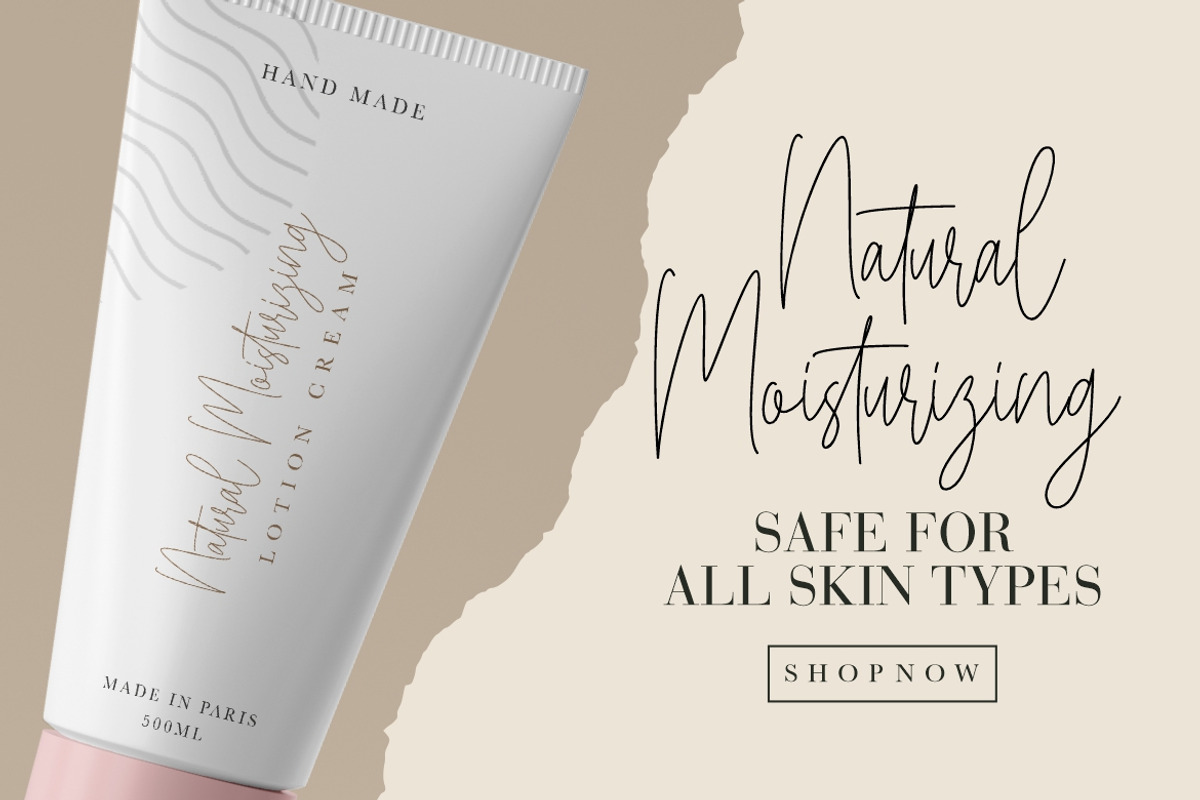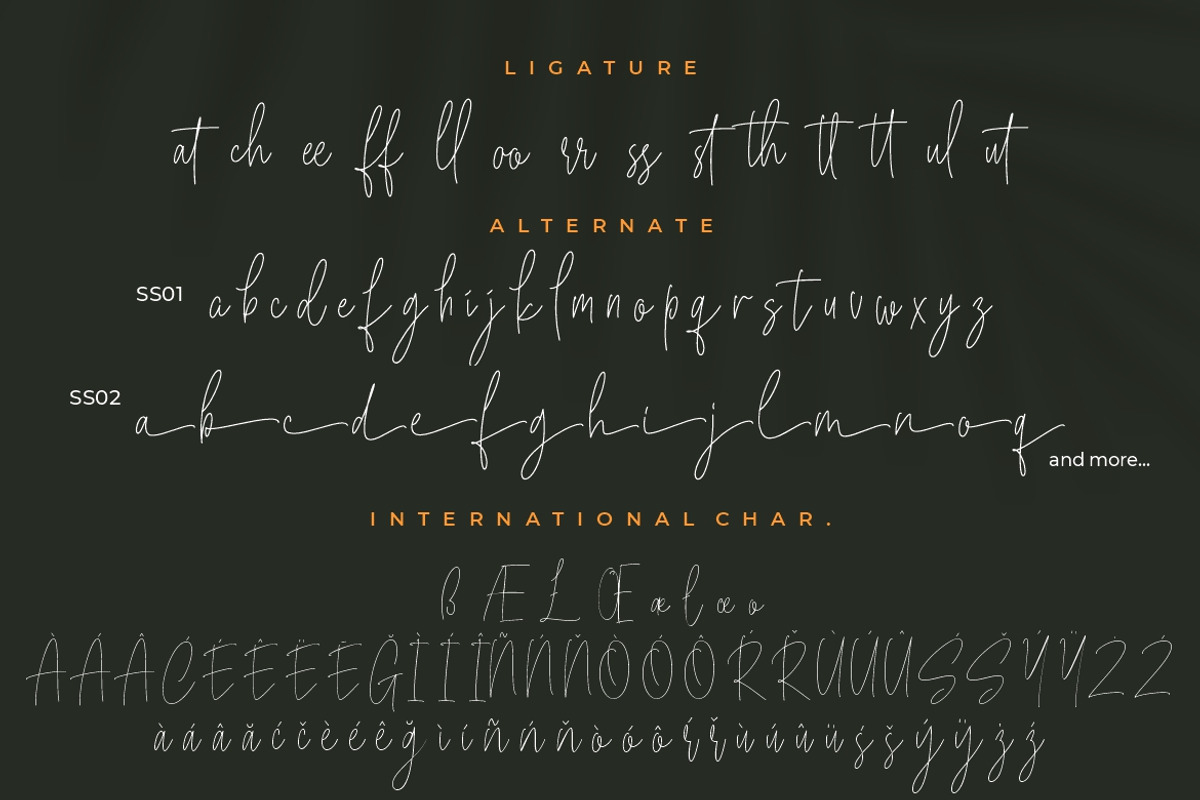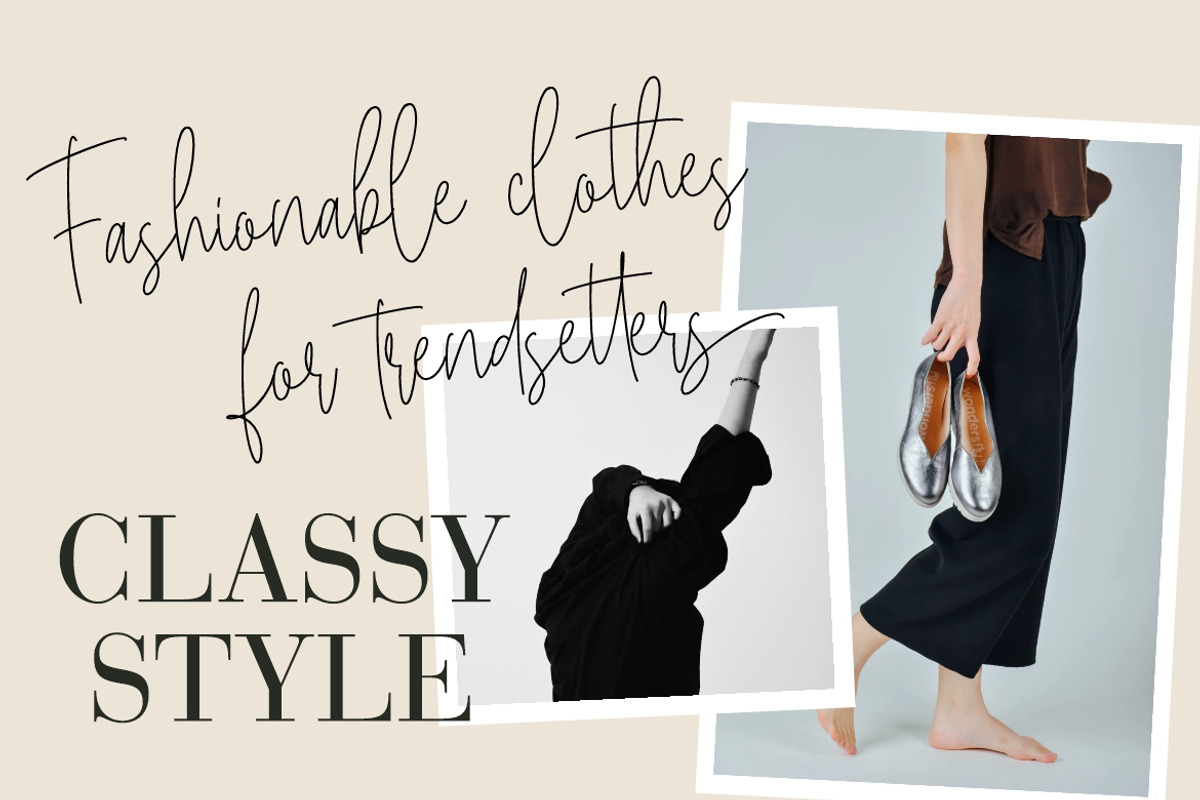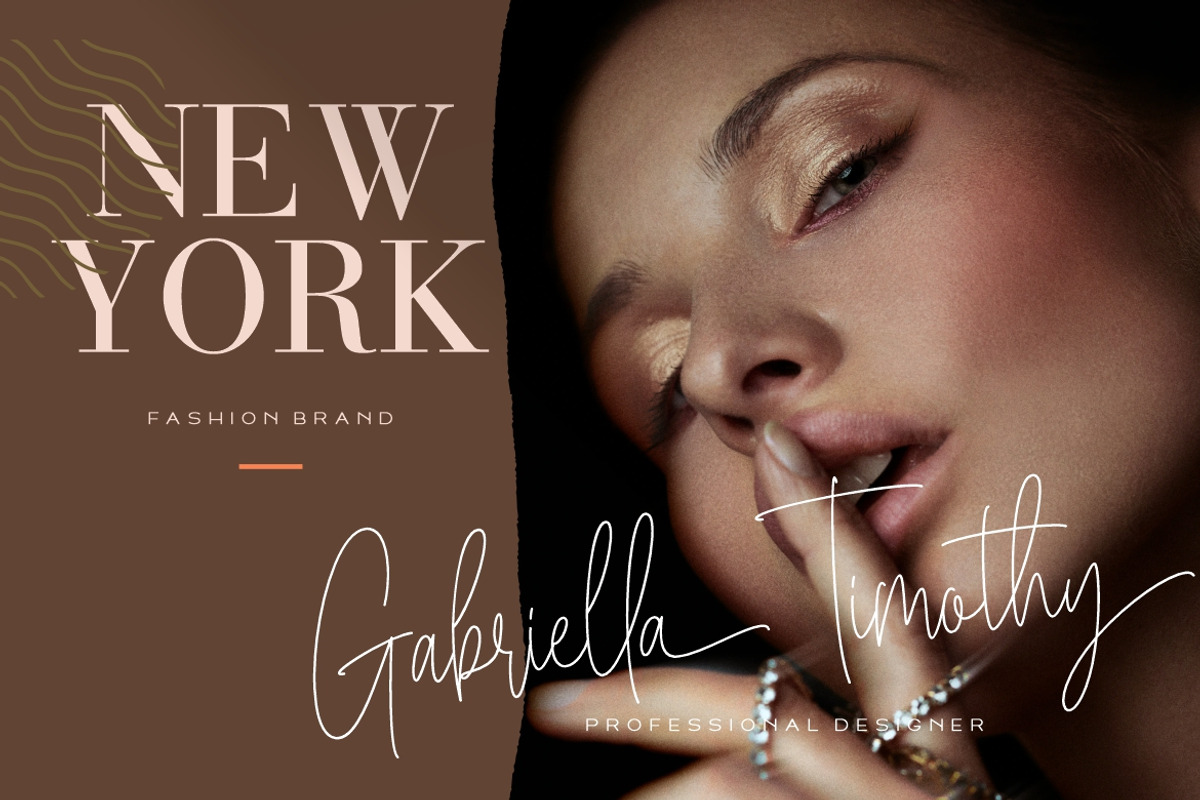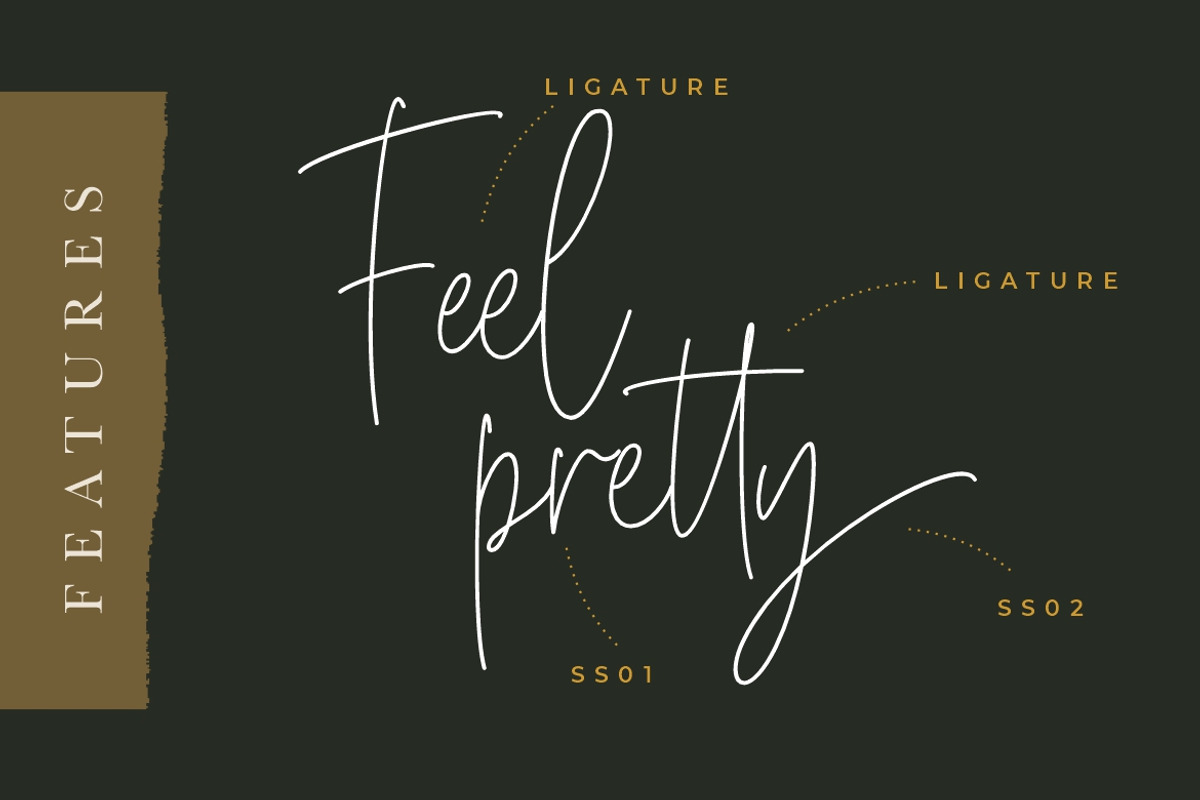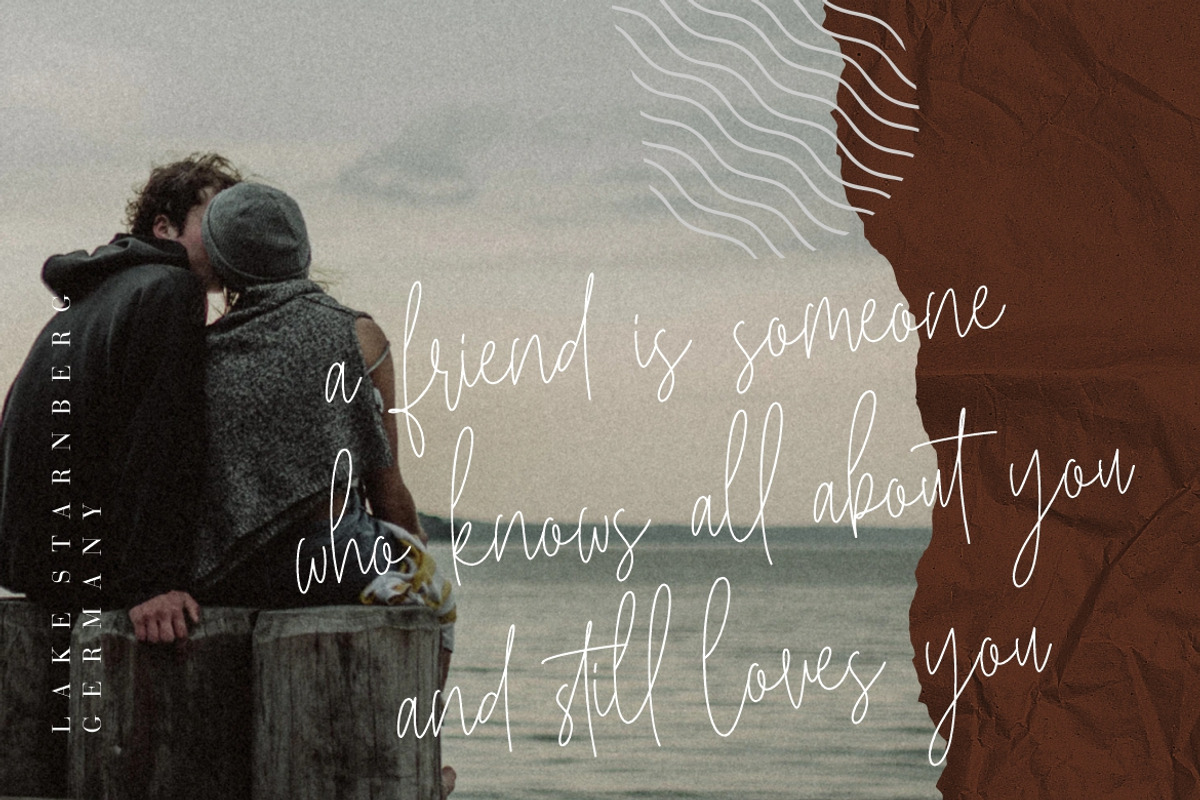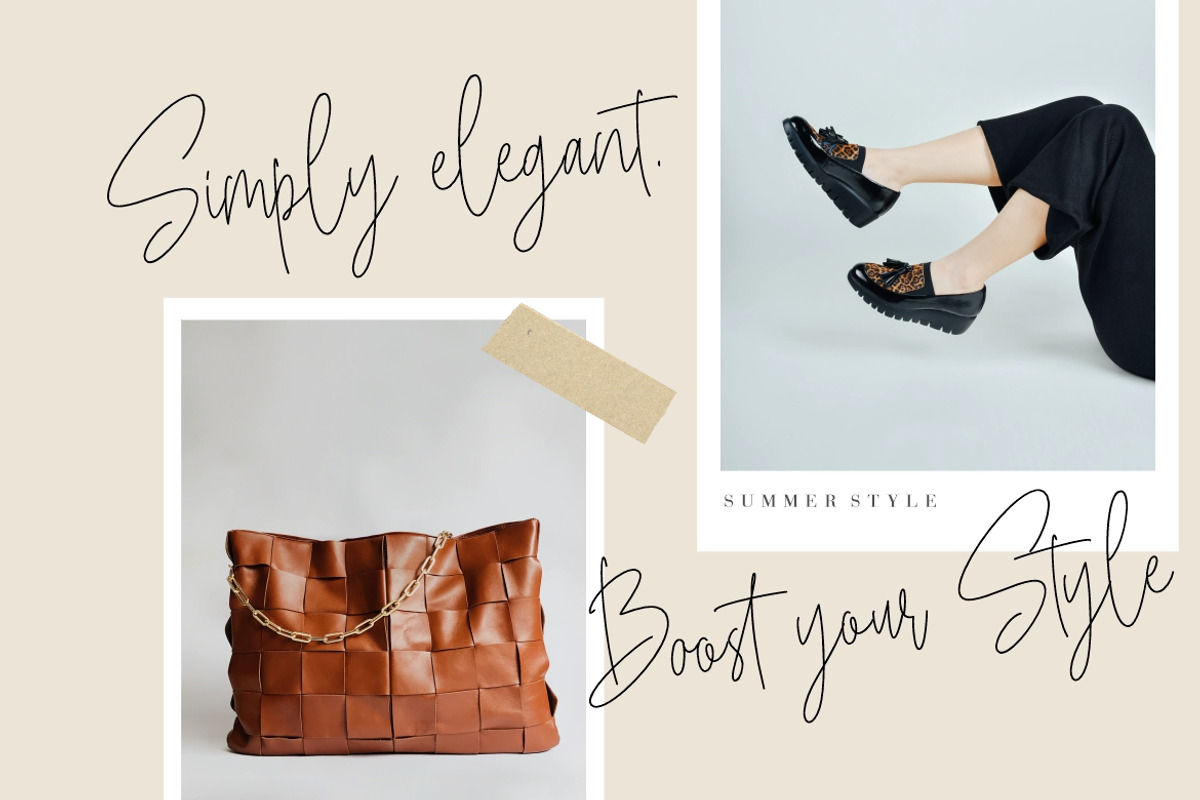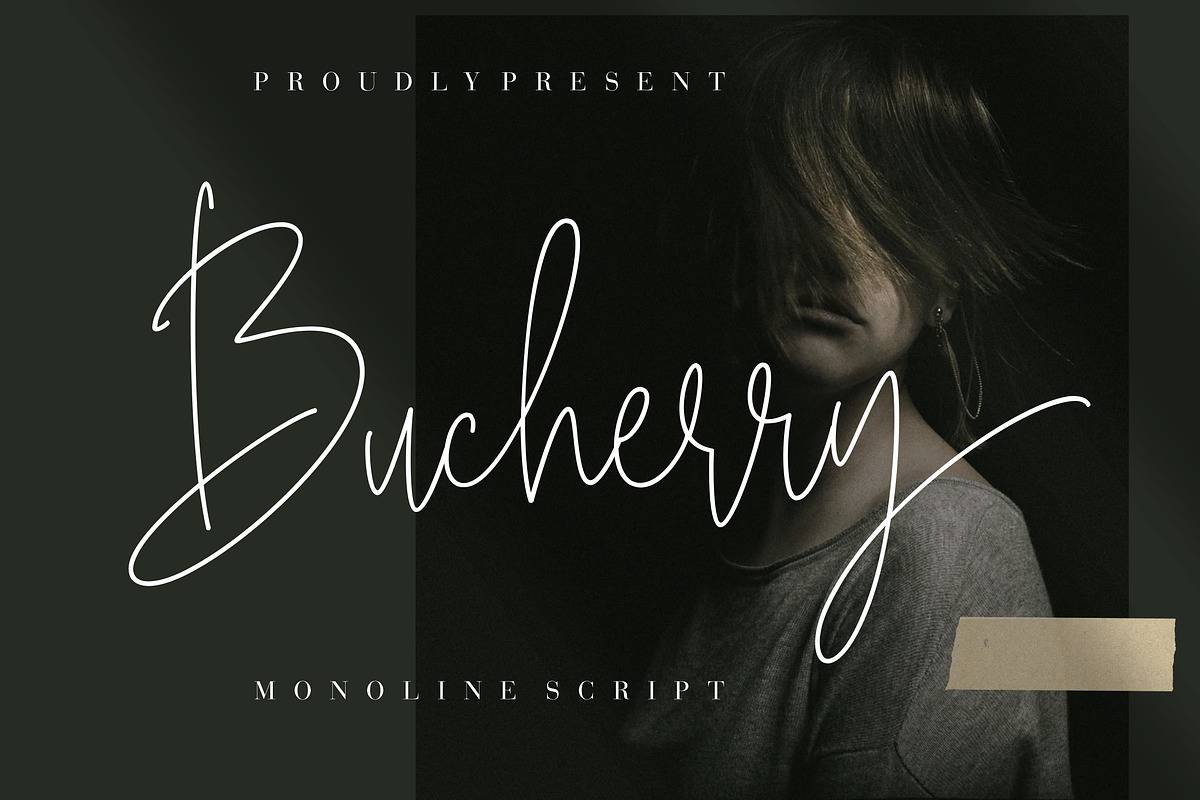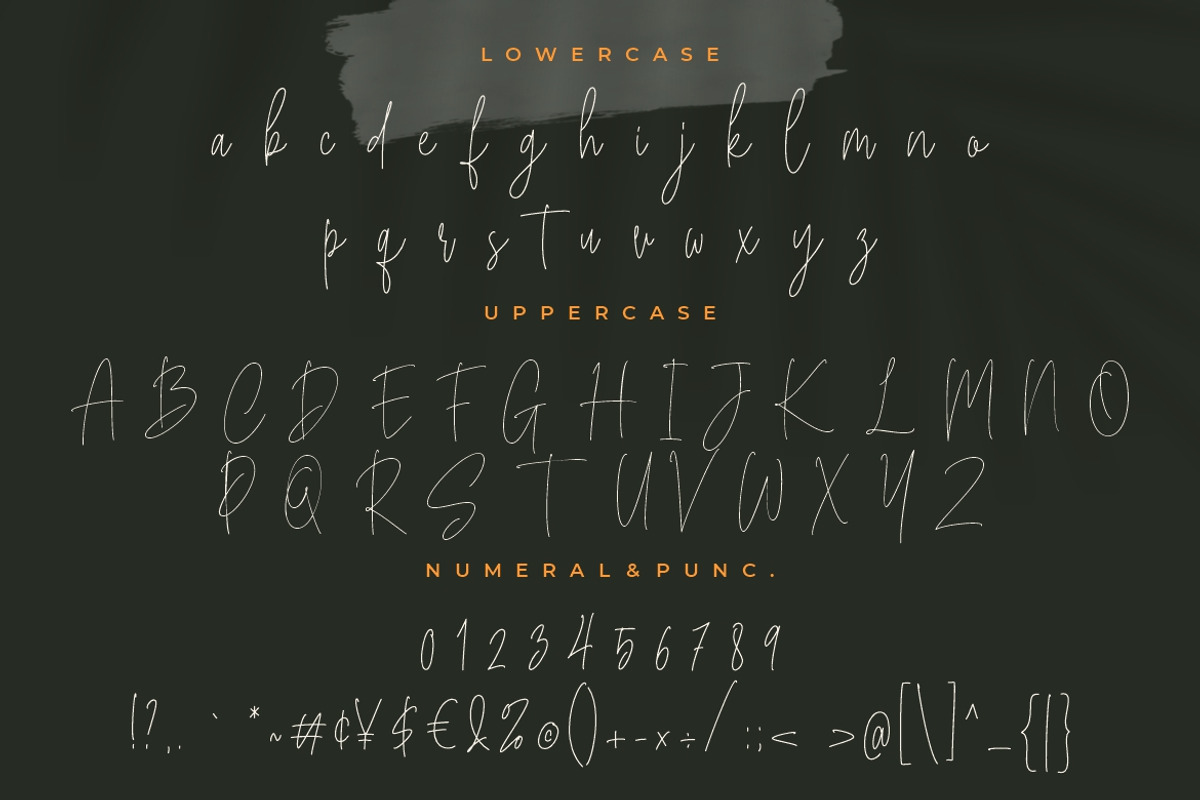
Bucherry Monoline Script
Bucherry a font with stylish monoline script and very suitable for your beautiful projects.
Bucherry is perfect for branding projects, logo, wedding designs, social media posts, advertisements, product packaging, product designs, label, photography, watermark, invitation, stationery and any projects that need handwriting taste.
- Ligature & Alternate
- Fonts include multilingual support for; Afrikaans, Albanian, Czech, Danish, Dutch, English, Estonian, Finnish, French, German, Hungarian, Italian, Latvian, Lithuanian, Norwegian, Polish, Portugese, Slovak, Slovenian, Spanisch, Swedish.